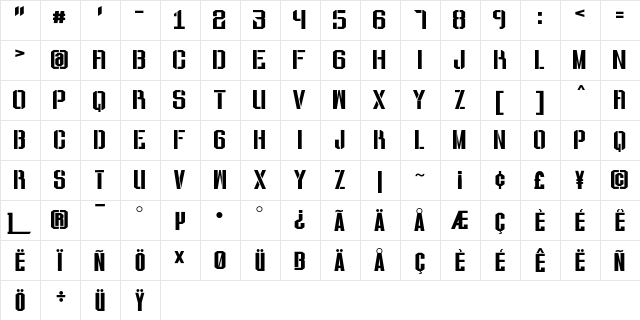
ToughGuy Stencil
| Style | Stencil |
| Foundry | Official Graffiti Font By Matthew Napolitano |
| Designer | Matthew Napolitano |
Design Context for ToughGuy Typeface
ToughGuy has the rough pragmatism of spray-painted stencil signage, adding a raw, street-level authenticity to designs.
A strong choice for packaging that needs edge, warehouse aesthetics, and rough-and-ready visual identities.
Pro Tip: Use ToughGuy at large sizes on packaging, posters, or apparel where the stencil cutaways read clearly. Avoid small sizes where those gaps become visual noise.